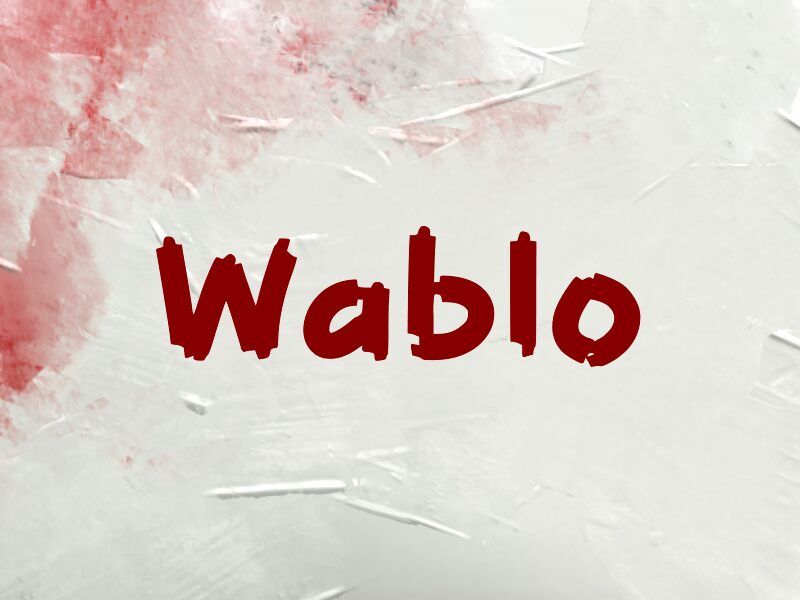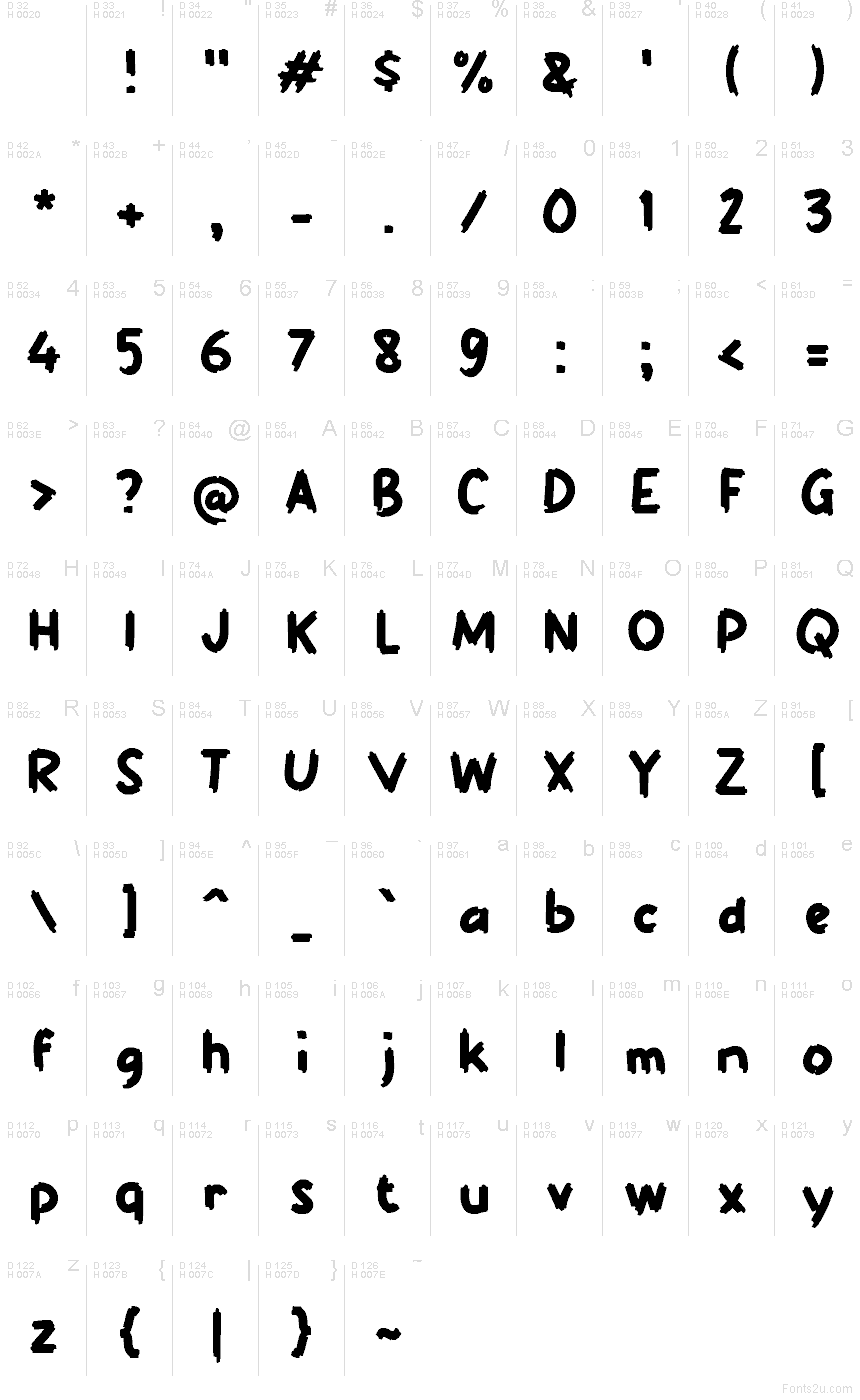
Wablo
Wablo font by wepfont.com is a free brush font that hits with the energy of a hand-painted poster. Its thick, inky strokes, uneven edges, and bouncy rhythm feel like they were slapped onto a wall with a fat marker, giving every word a loud, friendly shout. The letters are compact yet chunky, so they hold together as a solid block of attitude while still feeling playful and loose.
Using Wablo, headlines instantly grab attention, making this free font a natural fit for gig posters, kids’ event flyers, YouTube thumbnails, snack packaging, comics, and bold logo wordmarks. It shines when set big and bold, then paired with a simple sans-serif for supporting text to keep everything readable while Wablo does the shouting.